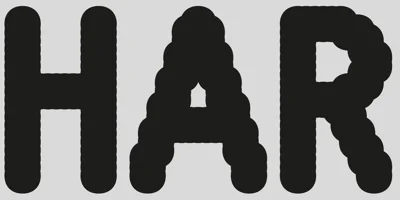
HARBER Font
HARBER Font is perfect for maritime projects including sailing club branding, nautical restaurant signage, harbor authority materials, coastal tourism graphics, marine equipment packaging, yacht club logos, shipping company identities, and waterfront property marketing. This distinctive typeface brings oceanic strength and maritime heritage to any design project.
What makes HARBER Font exciting is its powerful evocation of seafaring tradition and harbor life through bold, weathered letterforms. The robust character design features the sturdy reliability associated with maritime industries while maintaining modern readability. This font delivers the authentic nautical atmosphere that connects viewers to the timeless appeal of ocean adventures and coastal living.
The HARBER Font family typically includes bold and regular weights with maritime-inspired styling, complete uppercase and lowercase alphabets, numerals, punctuation, and nautical symbols. The design often features weathered textures and industrial strength characteristics that reflect the harsh marine environment. Some versions include decorative elements, anchor symbols, and additional maritime-themed characters perfect for coastal branding applications.
Whether you're designing for marine businesses, coastal resorts, or nautical lifestyle brands, HARBER Font delivers the authentic maritime character that builds trust and adventure appeal. Its commanding presence makes it ideal for memorable signage and brand identities that need to convey strength and reliability. The font's harbor heritage ensures it communicates tradition and dependability, making it perfect for any project requiring the respected aesthetic of maritime professionalism and oceanic adventure.